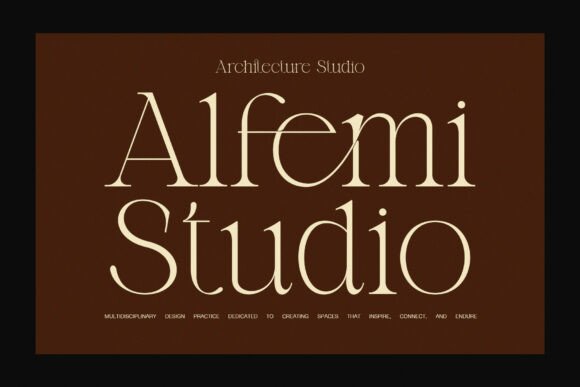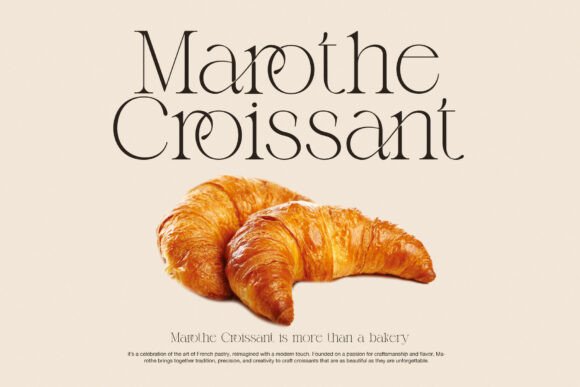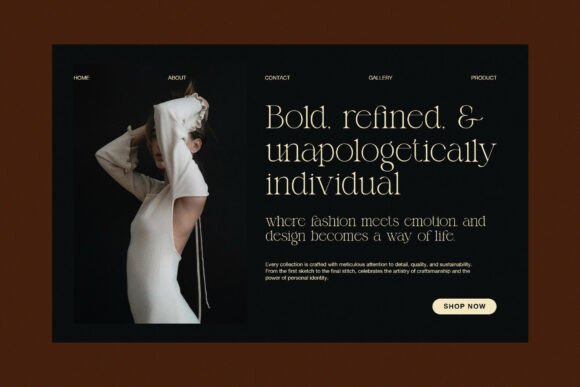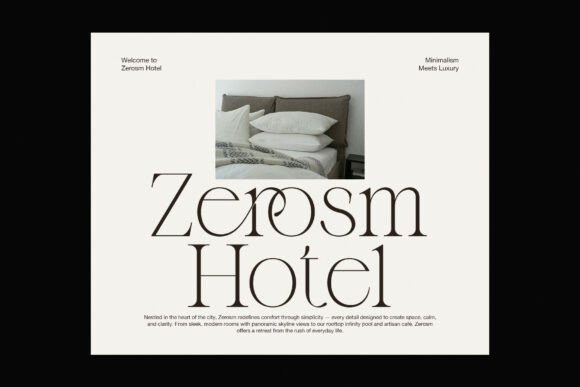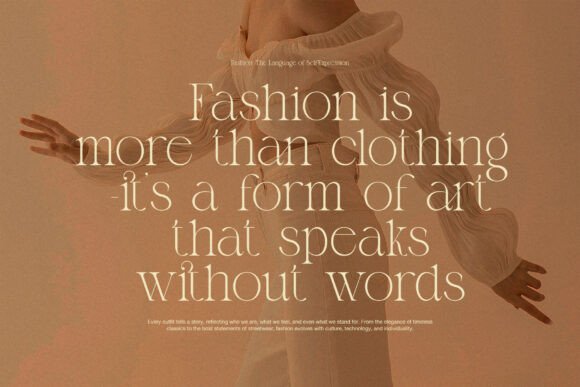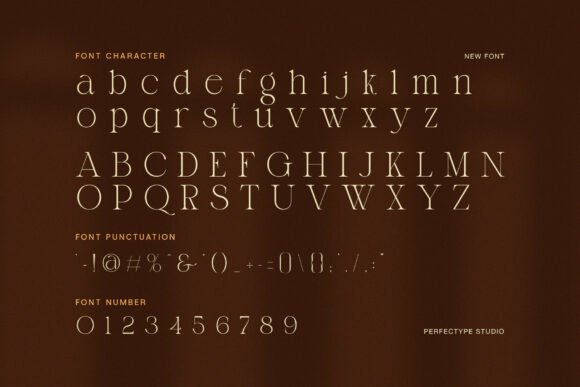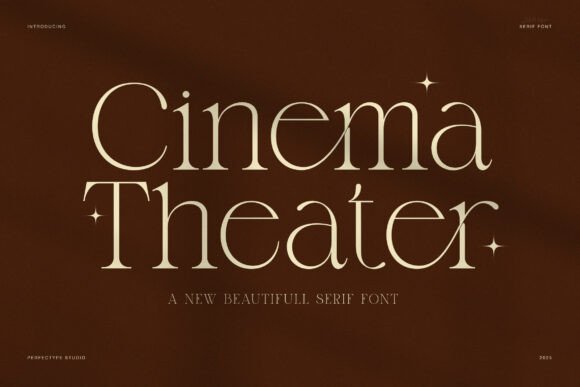
Cinema Theater Font: Elevate Your Design with Elegant Serif Sophistication
In the world of typography, few fonts capture the essence of cinematic grandeur and modern sophistication as beautifully as the Cinema Theater font. This elegant serif font has been making waves in the design community for its unique ability to blend classic cinematic charm with a contemporary edge. Whether you’re a seasoned designer or a crafty enthusiast, Cinema Theater offers a wealth of creative possibilities for those looking to add a touch of luxury and timelessness to their projects.
The Distinctive Features of Cinema Theater
One of the standout features of the Cinema Theater font is its meticulously crafted curves and strokes. Every detail, from the smooth transitions between thick and thin strokes to the graceful ligatures, has been carefully designed to contribute to the font’s overall beauty and elegance. This attention to detail results in a typography that exudes a sense of refinement and sophistication, making it an ideal choice for projects that demand a high level of class and poise.
The font’s serif design adds a traditional touch, reminiscent of classic cinema posters and elegant editorial layouts. However, its modern sensibilities ensure that it remains versatile and adaptable, suitable for a wide range of applications, from branding and advertising to publishing and digital media.
Why Designers Love Cinema Theater
Designers often turn to Cinema Theater for its ability to elevate branding and editorial design. The font’s refined style lends a polished and sophisticated air to any layout, making it perfect for projects that require a bit of luxury and glamour. Its classic elegance, combined with a modern touch, ensures that the text feels both timeless and current, a difficult balance to achieve in typography.
The balanced proportions of Cinema Theater contribute to its readability, making it as functional as it is beautiful. Whether used in headings, body text, or captions, the font maintains clarity and charm, enhancing the overall flow of the text. This makes it an excellent choice for lengthy editorial pieces, as well as for branding and advertising materials where both style and substance are crucial.
Applications of Cinema Theater
The versatility of Cinema Theater means it can be used in a variety of contexts. Here are a few ideas to get you started:
- Branding: Use Cinema Theater to add a touch of elegance and sophistication to your brand’s identity. Its luxurious feel makes it perfect for high-end brands looking to convey quality and refinement.
- Editorial Design: Elevate your magazine, newspaper, or digital publication with Cinema Theater’s classic yet modern aesthetic. Its readability and charm make it ideal for articles, headlines, and captions.
- Advertising: Create eye-catching advertisements with Cinema Theater. Its cinematic feel and sophisticated style are sure to capture attention and convey a sense of luxury.
- Packaging: Add a touch of glamour to your product packaging with Cinema Theater. Its elegant design works well on luxury goods, cosmetics, and high-end electronics.
Tips for Using Cinema Theater Effectively
To make the most of Cinema Theater, consider the following tips:
- Mix and Match: Combine Cinema Theater with other fonts to create visual interest. Pairing it with a sans-serif font can highlight its elegant features.
- Play with Sizes: Experiment with different font sizes to emphasize headings and subheadings, making your layout more dynamic.
- Utilize Ligatures: Take advantage of Cinema Theater’s graceful ligatures to add a unique touch to your text.
- Adjust Line Spacing: Ensure your text flows smoothly by adjusting the line spacing. Cinema Theater’s balanced proportions work well with a bit of extra space.
Cinema Theater font stands out in the world of typography for its elegant blend of cinematic grace and modern sophistication. Its refined style, smooth transitions, and graceful ligatures make it a versatile and beautiful choice for designers and crafters looking to add a touch of luxury and timelessness to their projects. Whether you’re working on branding, editorial design, advertising, or packaging, Cinema Theater offers a wealth of creative possibilities. Embrace its classic elegance with a modern twist, and watch your designs transform with the sophisticated charm of Cinema Theater.